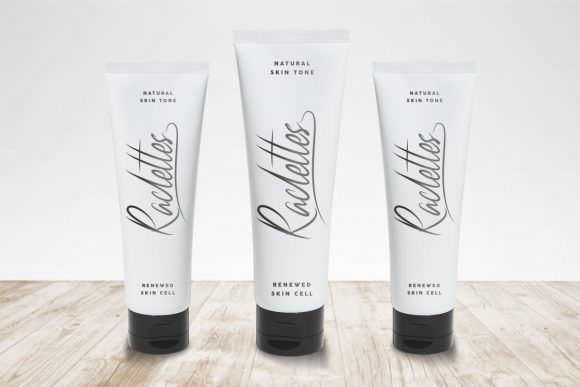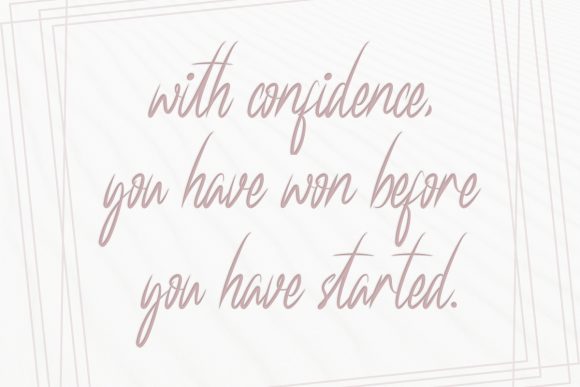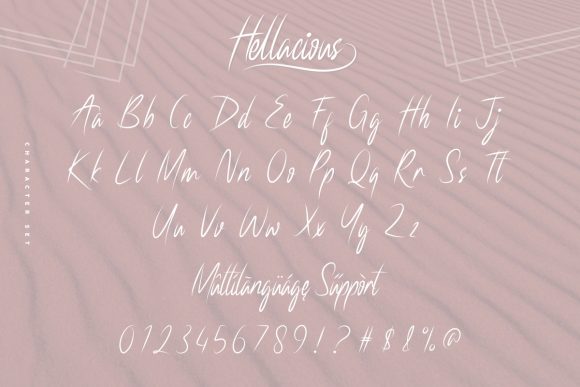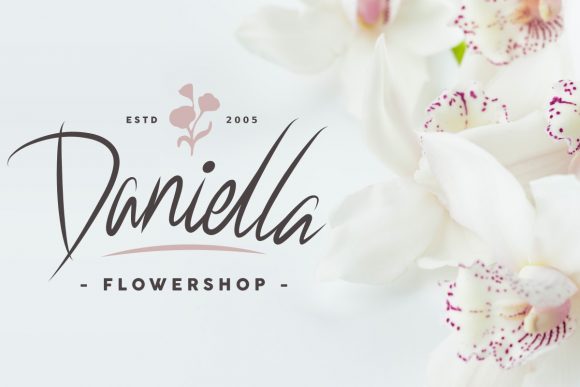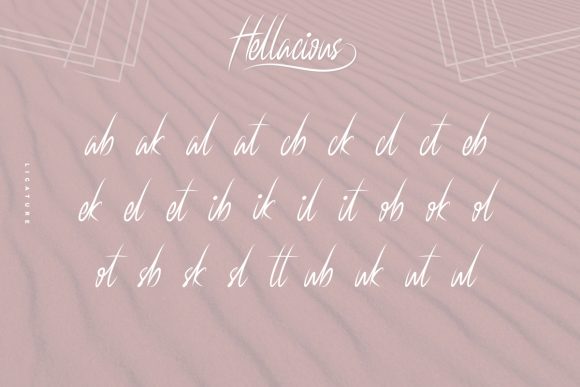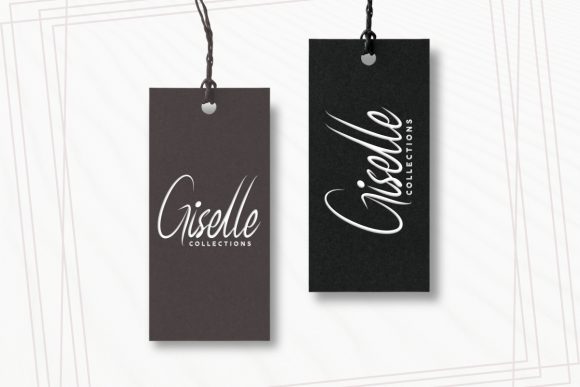
Hellacious Font: Add a Touch of Elegance and Romance to Your Designs
Are you looking for a font that exudes elegance, romance, and sophistication? Look no further than the Hellacious Font, a stylish and delicate script font that’s perfect for adding a personal touch to your designs. In this article, we’ll dive into the features and benefits of the Hellacious Font, and explore how you can use it to elevate your wedding invitations, cards, and other design projects.
What is Hellacious Font?
Hellacious Font is a beautiful script font that’s designed to add a touch of romance and whimsy to your designs. With its dainty and joyful feel, this font is ideal for creating wedding invitations, cards, and other stationery that requires a personal and elegant touch. The font features intricate swashes and glyphs that add a level of sophistication and refinement to your designs.
Key Features of Hellacious Font
- PUA Encoded: The Hellacious Font is PUA (Private Use Area) encoded, which means you can access all of the glyphs and swashes with ease. This makes it simple to customize your designs and add a personal touch.
- Stylish and Delicate: The font features a stylish and delicate design that’s perfect for creating elegant and refined designs.
- Dainty and Joyful: The Hellacious Font has a dainty and joyful feel that’s ideal for creating wedding invitations, cards, and other stationery.
- Romantic and Personalized: The font is designed to add a romantic and personalized touch to your designs, making it perfect for special occasions.
Benefits of Using Hellacious Font
So why choose the Hellacious Font for your design projects? Here are just a few benefits of using this beautiful script font:
- Elegance and Sophistication: The Hellacious Font adds a level of elegance and sophistication to your designs, making it perfect for special occasions.
- Customization: With its PUA encoding, you can easily access all of the glyphs and swashes, allowing you to customize your designs and add a personal touch.
- Versatility: The Hellacious Font is versatile and can be used for a variety of design projects, including wedding invitations, cards, and other stationery.
How to Use Hellacious Font in Your Designs
Using the Hellacious Font in your designs is easy. Here are a few tips to get you started:
- Wedding Invitations: Use the Hellacious Font to create beautiful and elegant wedding invitations that set the tone for the big day.
- Cards: Add a personal touch to your cards with the Hellacious Font, perfect for special occasions such as birthdays, anniversaries, and holidays.
- Stationery: Use the font to create custom stationery, including letterheads, journals, and planners.
- Digital Designs: The Hellacious Font can also be used in digital designs, such as social media graphics, blog posts, and website headers.
Tips and Tricks for Getting the Most Out of Hellacious Font
Here are a few tips and tricks for getting the most out of the Hellacious Font:
- Experiment with Swashes: The Hellacious Font features intricate swashes that can add a level of sophistication to your designs. Experiment with different swashes to find the one that works best for your project.
- Mix and Match: Don’t be afraid to mix and match the Hellacious Font with other fonts to create a unique and personalized look.
- Pay Attention to Kerning: Pay attention to kerning, or the space between letters, to ensure that your text looks elegant and refined.
The Hellacious Font is a beautiful and elegant script font that’s perfect for adding a touch of romance and sophistication to your designs. With its PUA encoding, stylish and delicate design, and versatility, this font is ideal for creating wedding invitations, cards, and other stationery. Whether you’re a designer or crafter, the Hellacious Font is a must-have in your font collection.